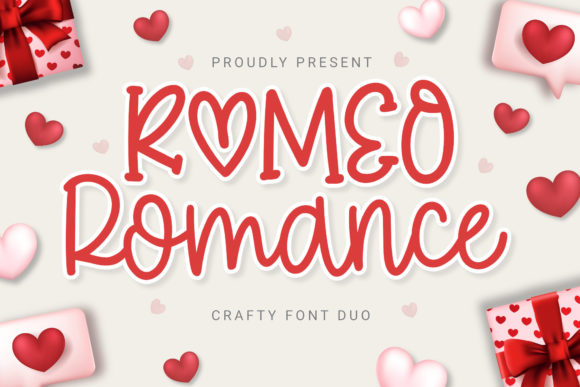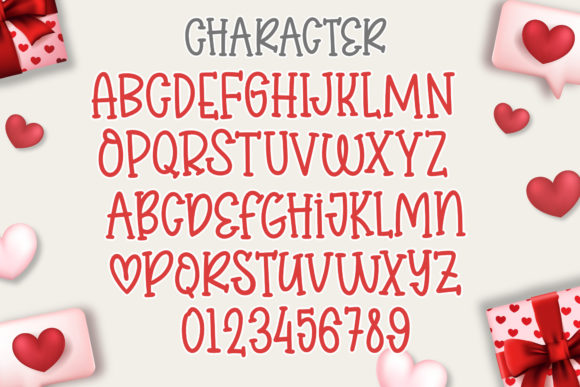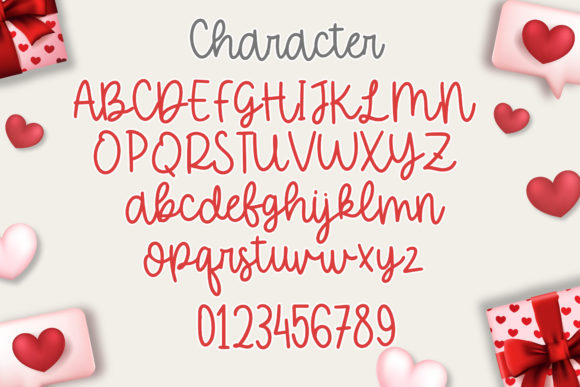
About Romeo Romance Font
Romeo Romance is a lovely handwritten and serif duo font perfect for all of your crafting projects. Fall in love with its dainty style, and use it to create bright designs!